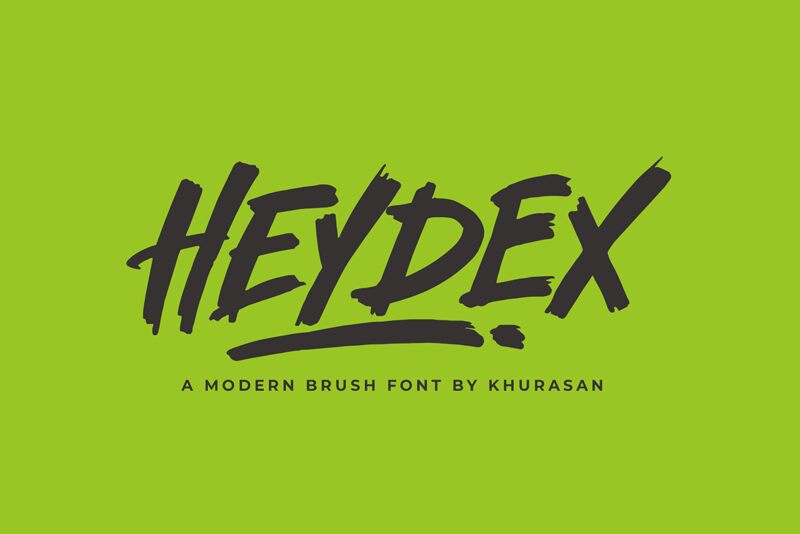
Heydex, the sensational creation by font designer Khurasan, is a captivating modern brush typeface that effortlessly combines elegance with boldness. With its semi-bold weight, Heydex exudes confidence and versatility, making it ideal for a wide range of projects.
From edgy fashion magazines to eye-catching advertisements and innovative branding materials, this font is a perfect choice for any design that demands a touch of contemporary sophistication.
Embrace the artistic flair of Heydex and watch your creations come to life with its seamless balance of style and substance.
Heydex